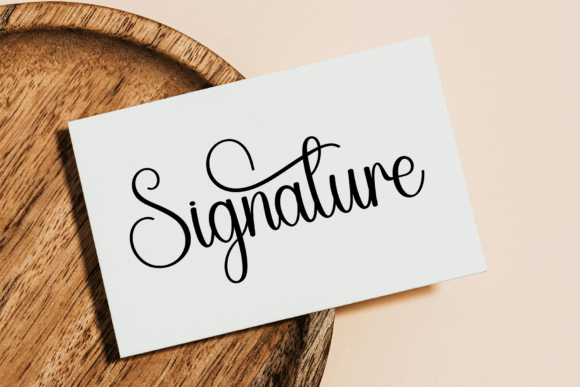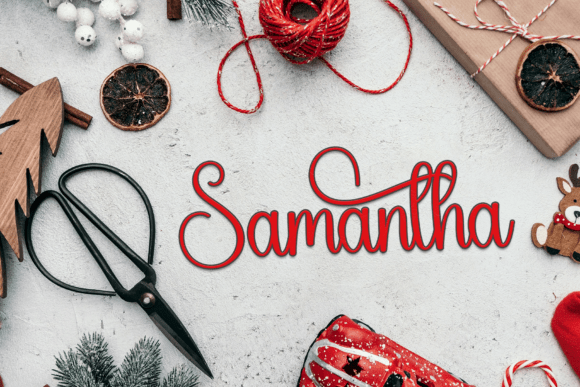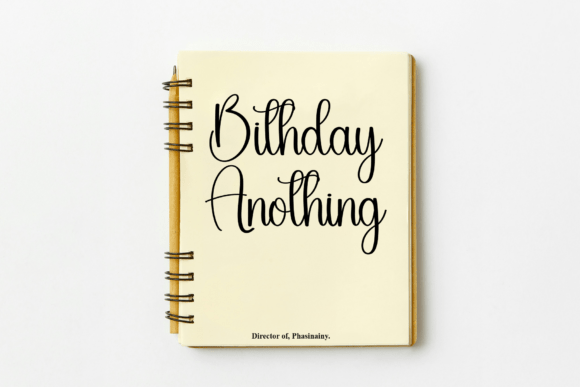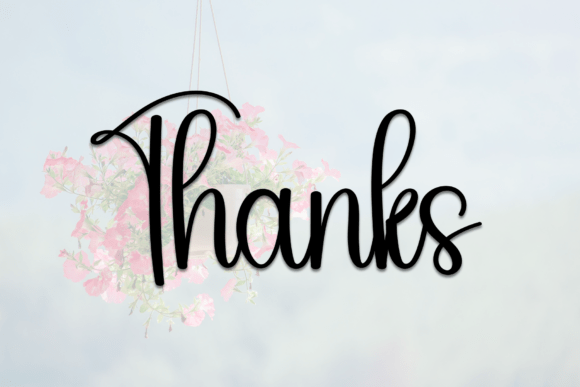
The Perfect Touch: Beautiful Font Elevates Your Design
Remember the moment when you first saw a design that left you speechless? The way the colors blended, the typography flowed, and the overall aesthetic made you feel like you were transported to a different world. For designers, those moments are what drive us to create something truly special. And that’s exactly what the Beautiful Font can do for your next project.
Beautiful Font is a stunning handwritten font that captures the essence of a marker-drawn look. Its relaxed and sporty feel makes it the perfect choice for branding, logos, wedding supplies, greeting cards, fashion, lookbooks, marketing promotions, and any other design project where you want to convey a sense of luxury and elegance with a touch of casual charm. With Beautiful Font, you can add that perfect touch to your design and make it truly unforgettable.
Beautiful Font Key Features
- Font Family: Beautiful Font offers a range of elegant and sophisticated font styles, perfect for both personal and professional use.
- Font Size: Beautiful Font is available in multiple sizes, ranging from 12 to 72 points, catering to various design needs.
- Resolution: Optimized for high-resolution displays, Beautiful Font is ideal for use in digital media, including websites, social media, and mobile applications.
- Unique Characteristics: The font features intricate details, elegant lines, and a touch of sophistication, making it perfect for use in luxury branding, high-end marketing materials, and elegant typography.
- Language Support: Beautiful Font supports multiple languages, including English, Spanish, French, German, Chinese, and many more, making it a versatile choice for global branding and communication.
Designer Review: Beautiful Font
Overall, I think Beautiful Font is a solid choice for any design project. It’s clean, elegant, and easy to read. ✨ The subtle curves and refined lines make it perfect for body text, while the bold weights are great for headings.
- ✨ Clean and elegant design that’s easy to read
- ✨ Perfect for body text and headings
- ✨ Supports a wide range of languages
However, there are a few limitations that I think are worth mentioning. ⚠️ The font is not as versatile as some other options, and it may not be the best choice for projects that require a lot of customizability. Additionally, the font files can be quite large, which may cause issues for designers who are working with limited storage space.
- ⚠️ Limited customizability
- ⚠️ Large font files
Despite these limitations, I think Beautiful Font is a great choice for designers who are looking for a clean and elegant font that’s easy to read. It’s a great option for projects that require a lot of text, and it’s perfect for designers who want a font that will stand out without being too flashy.
Beautiful Font: A Practical Application Guide
Getting the Most Out of Beautiful Font
To get the most out of Beautiful Font, consider the following tips:
Pair Beautiful Font with bold, contrasting colors to create a visually appealing design.
Use Beautiful Font in headings and titles to draw attention to important information.
Experiment with different font sizes and styles to create a unique and engaging design.
Beautiful Font is ideal for:
Creative projects, such as posters, flyers, and social media graphics.
Business presentations, such as slides and reports.
Document design, such as resumes and brochures.